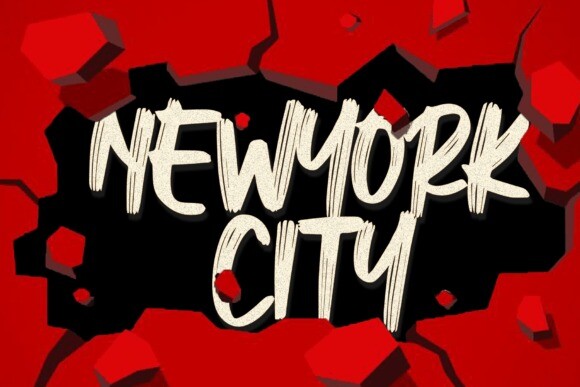
Spooky Brush Font
Designer: Black line
Spooky Brush is a font inspired by movies and mystery stories. Made to resemble a sharp object scratch on a hard surface. Perfect for creating a creepy atmosphere in your projects. This font is PUA encoded which means you can access all of the scary glyphs with ease!